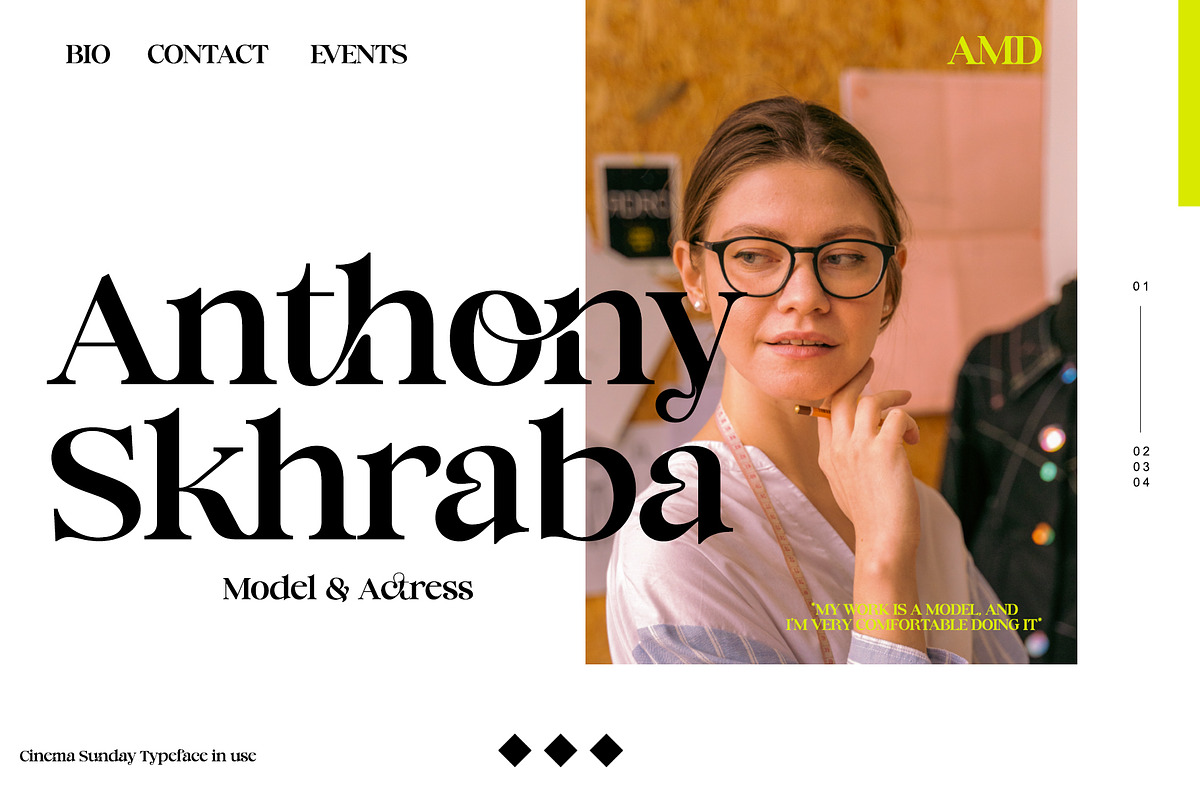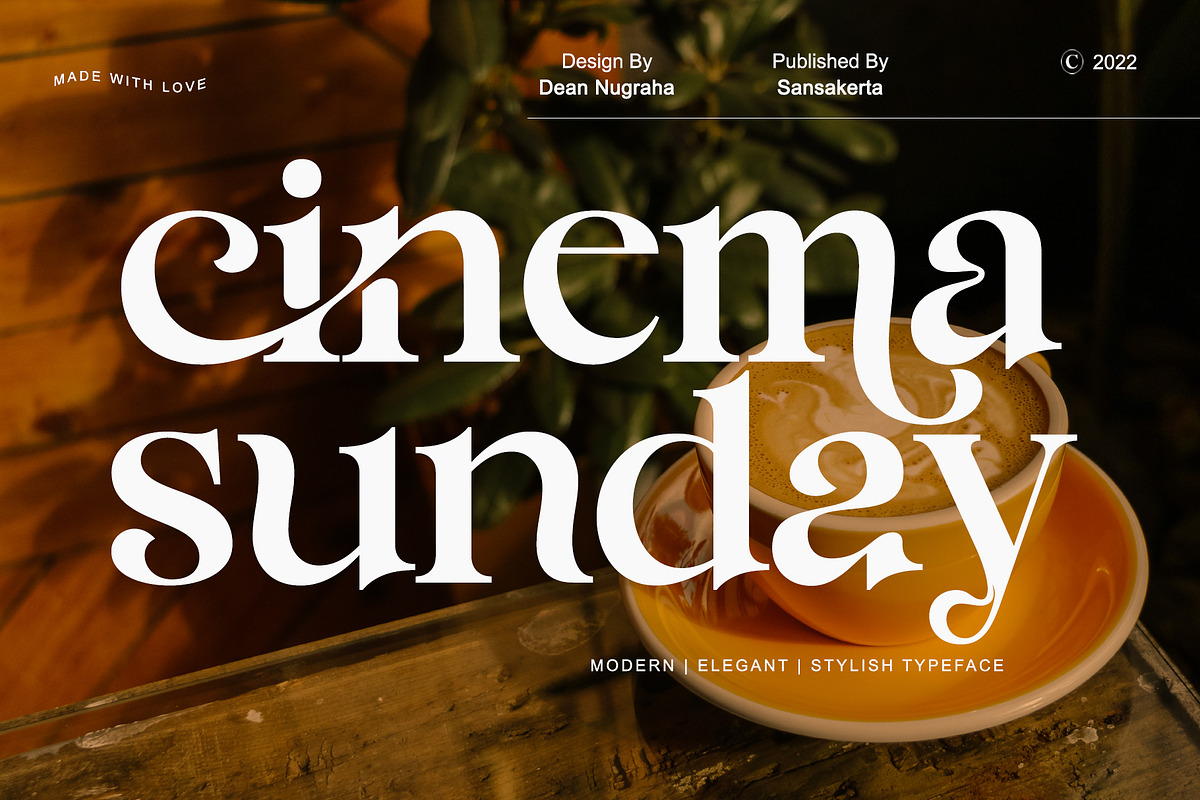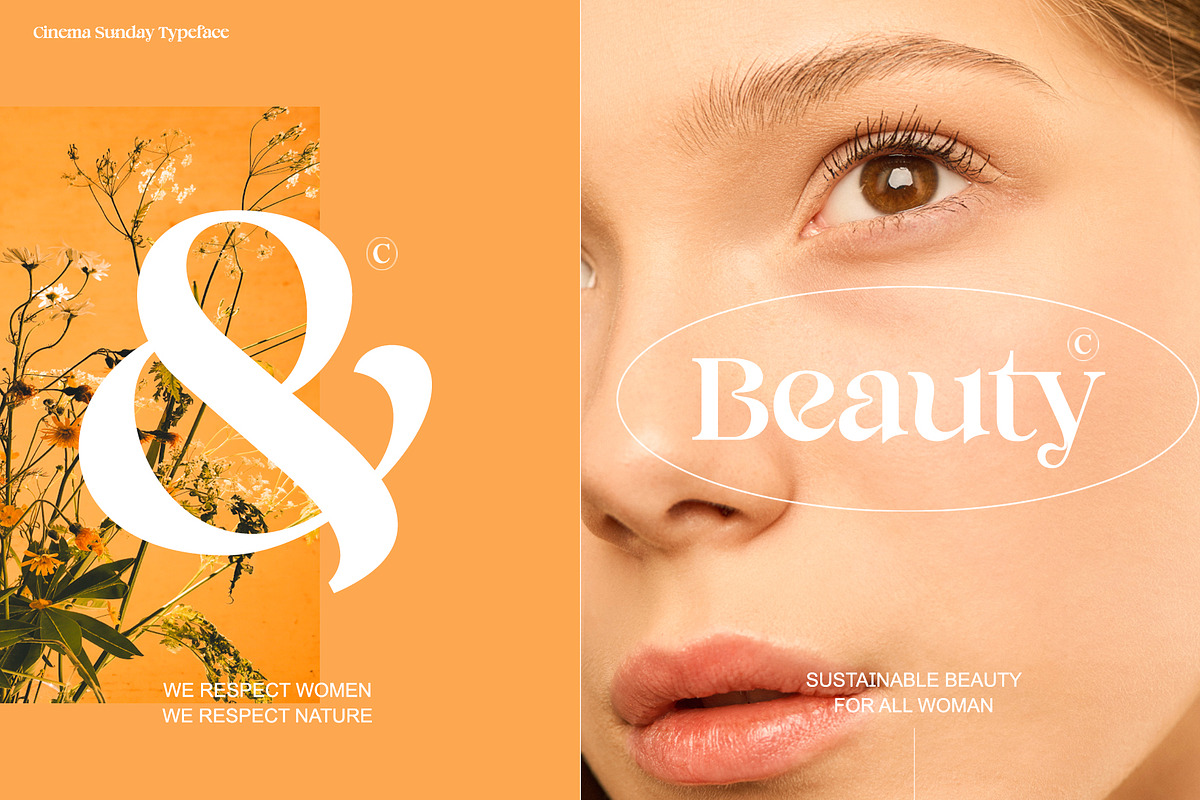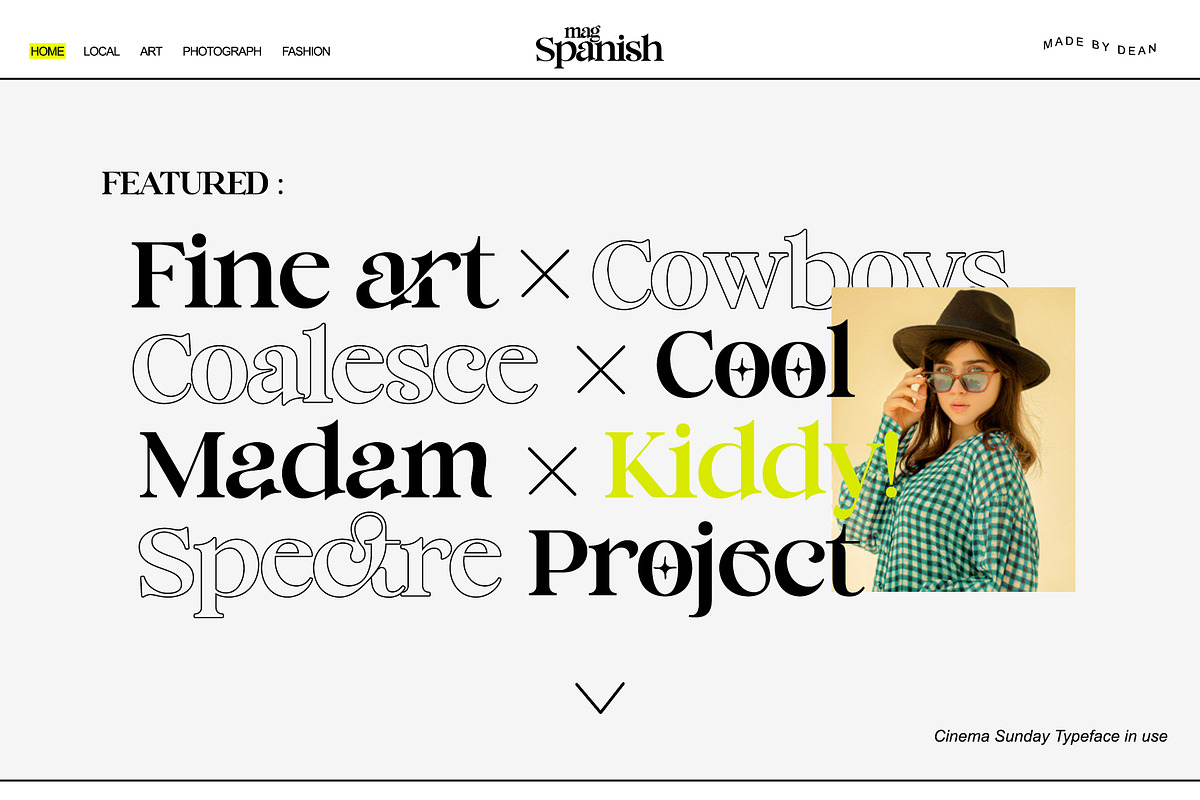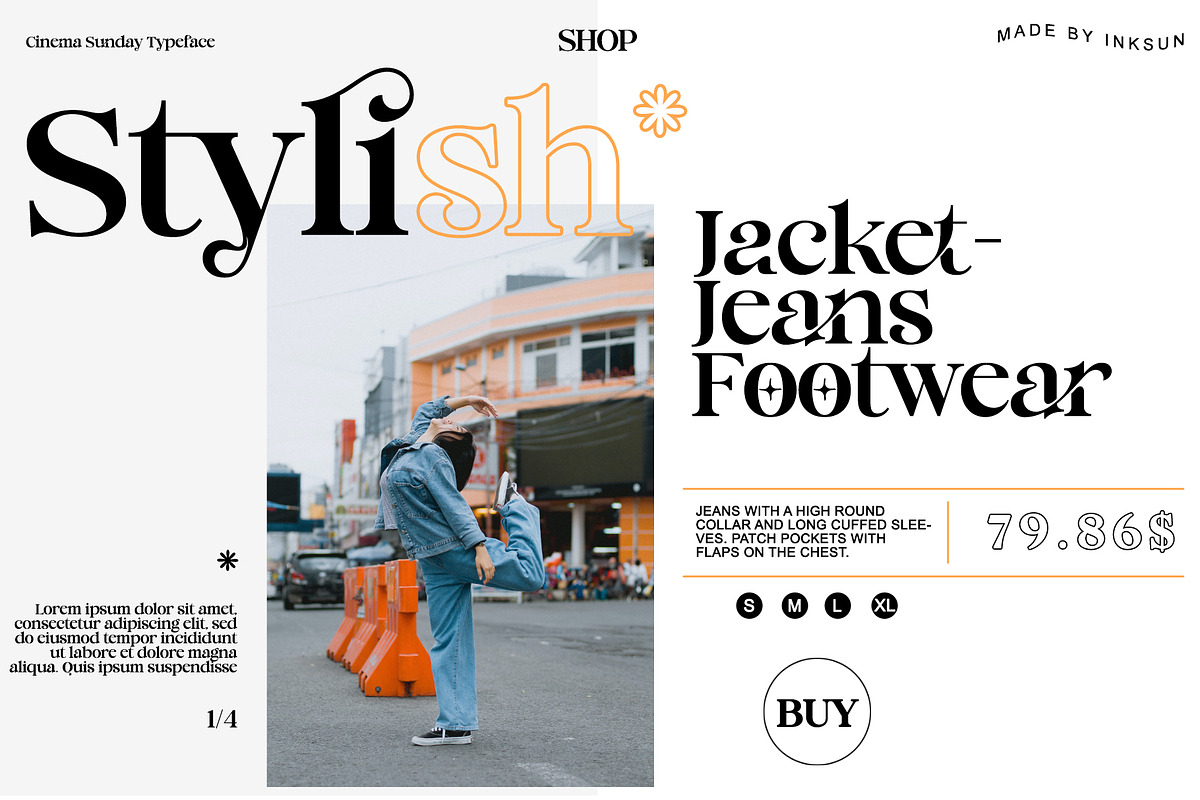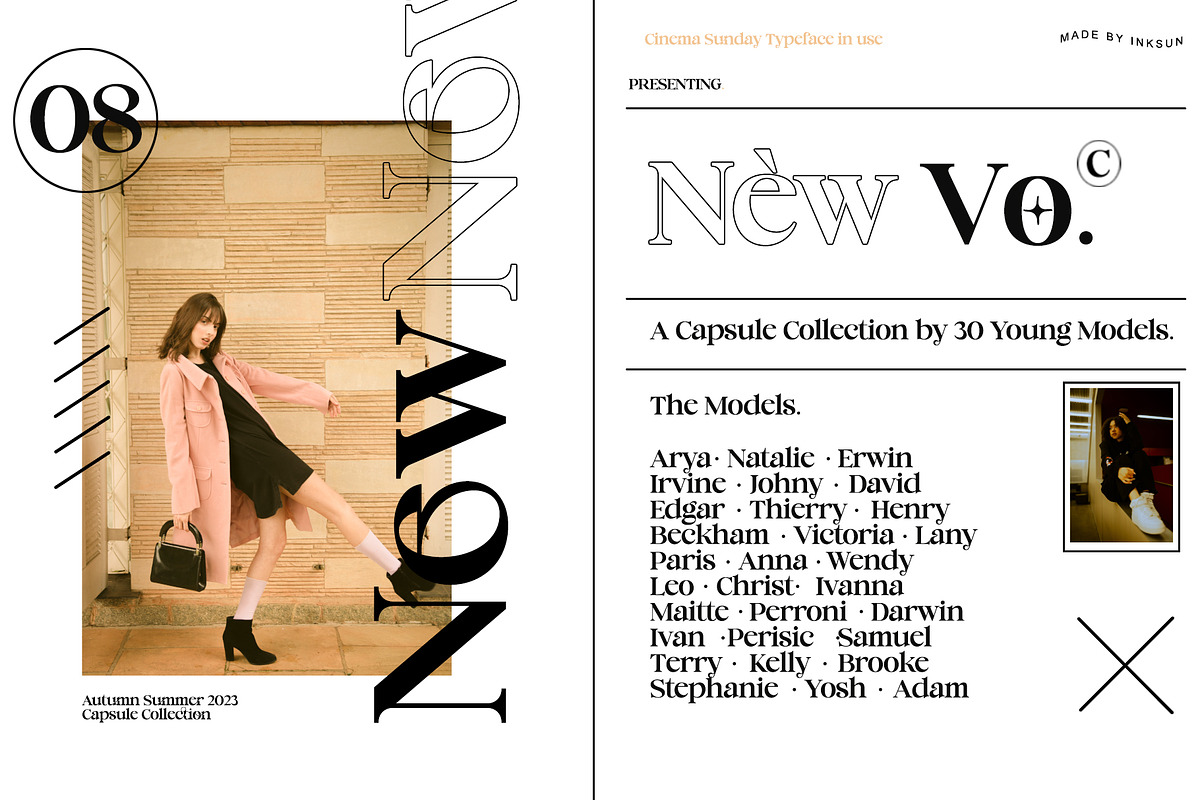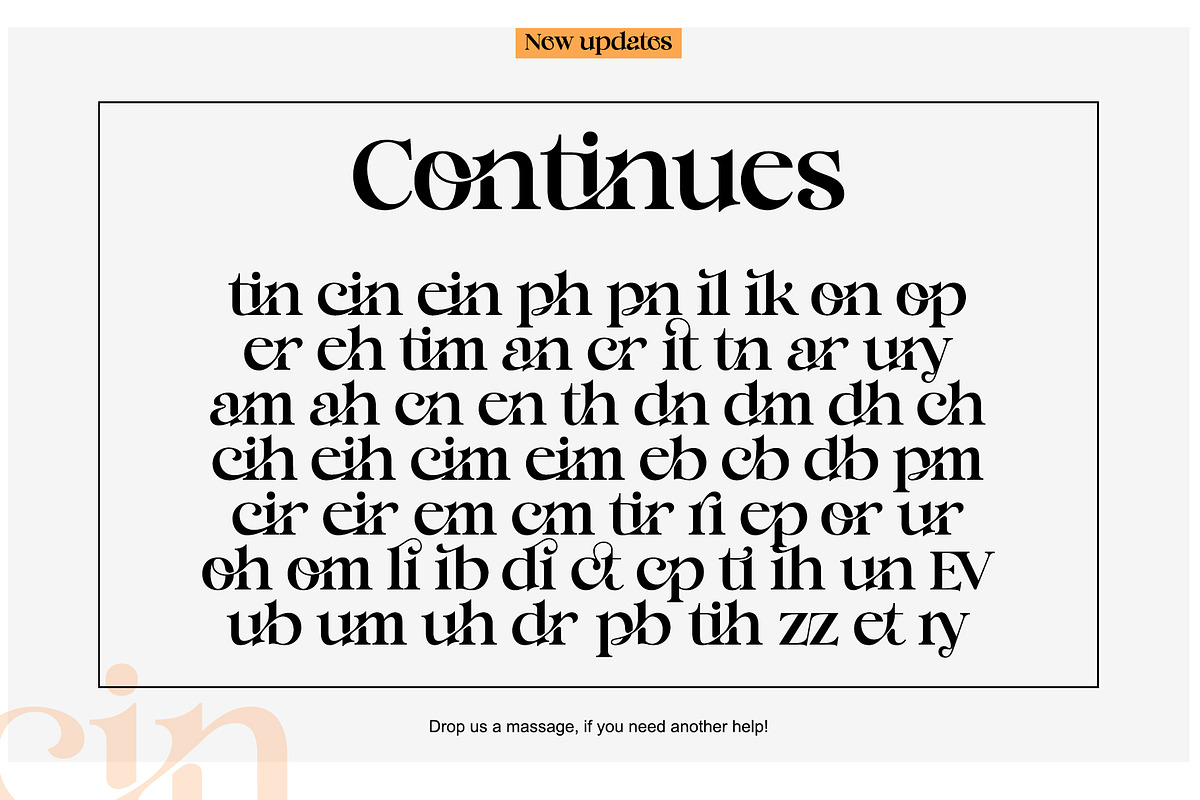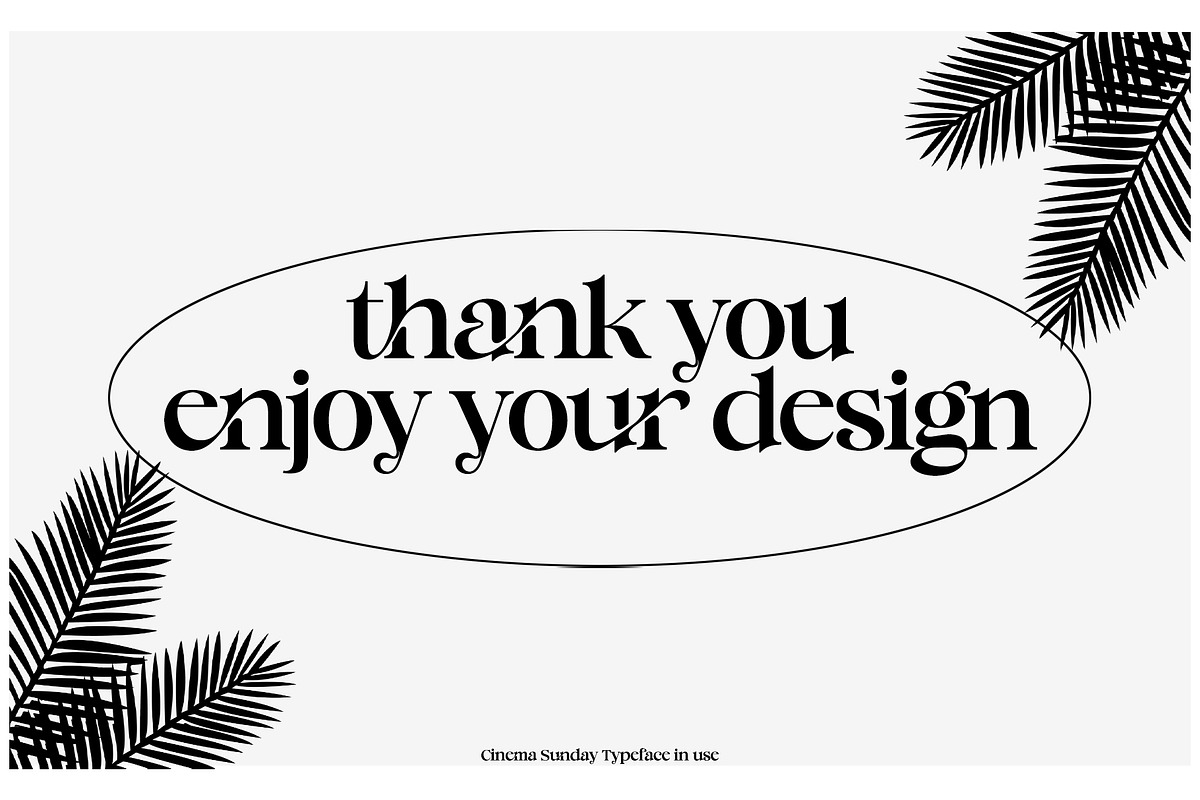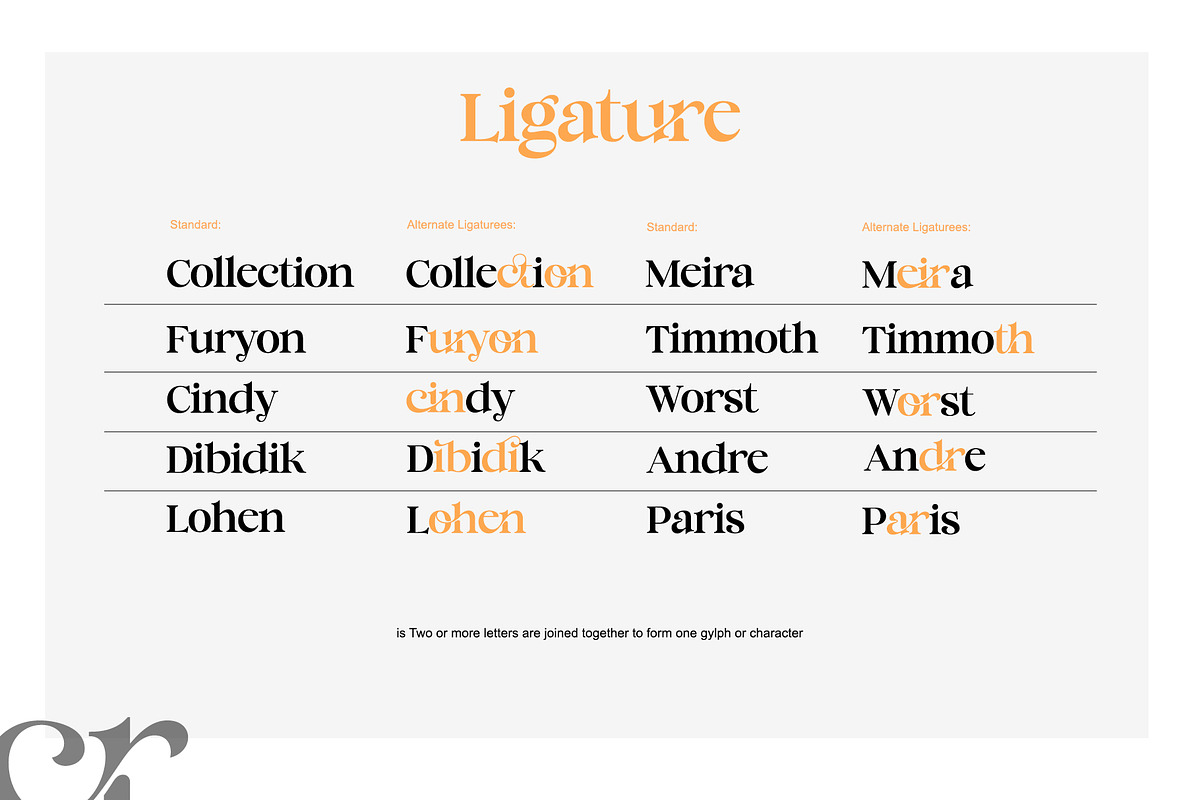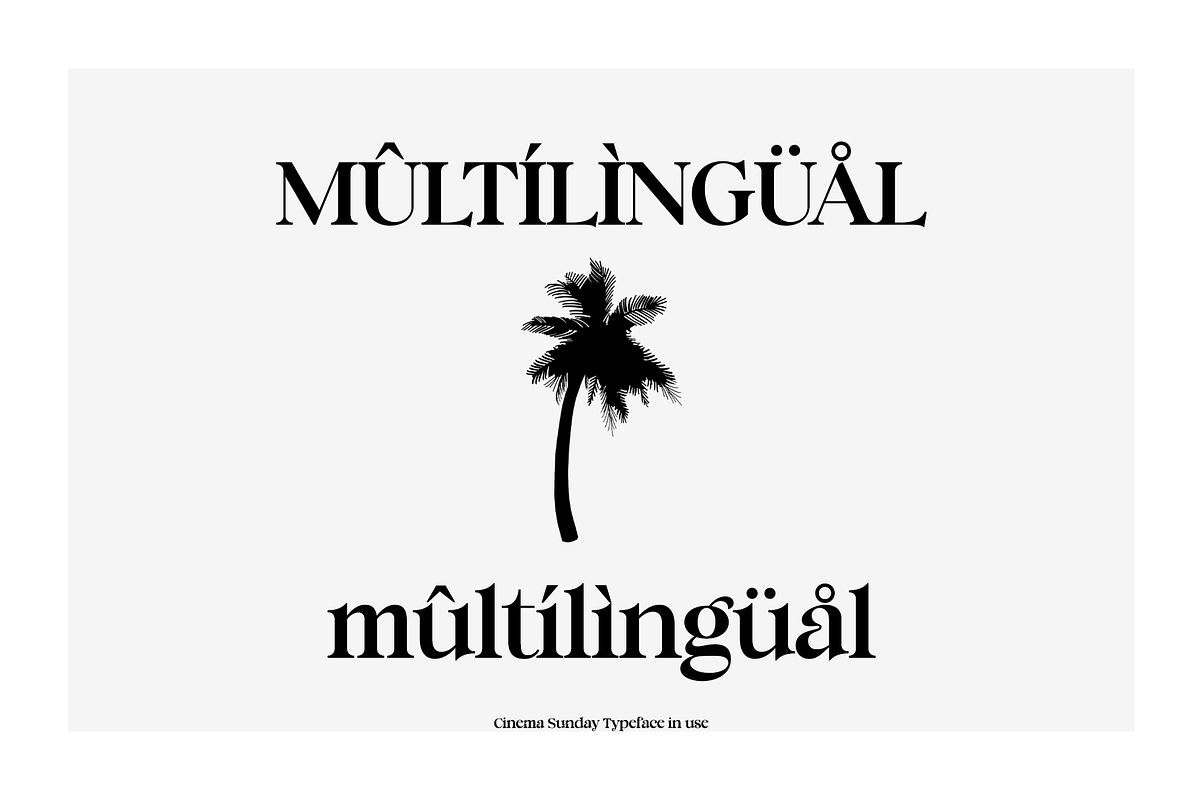
cinema sunday
Cinema Sunday is a Bold Minimalist Elegant Modern vintage font with beautiful ligatures, tons of special alternative glyphs, ornament and multilingual support. It's a very versatile font that works great in large and small sizes. Perfect for branding projects, Logo design, Clothing Branding, product packaging, magazine headers, or simply as a stylish text overlay to any background image.
Cinema Sunday is also included full set of:
-uppercase and lowercase letters
-multilingual support
-numerals-punctuation
-Ligature Characters